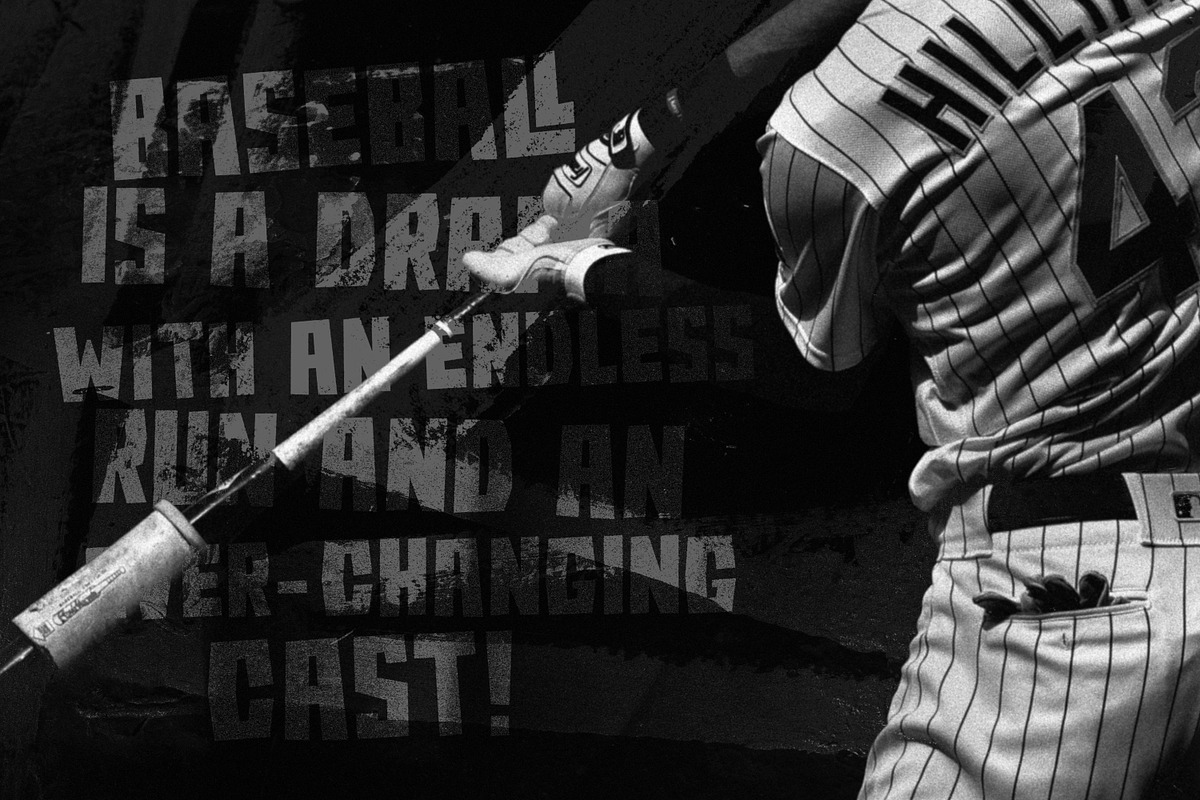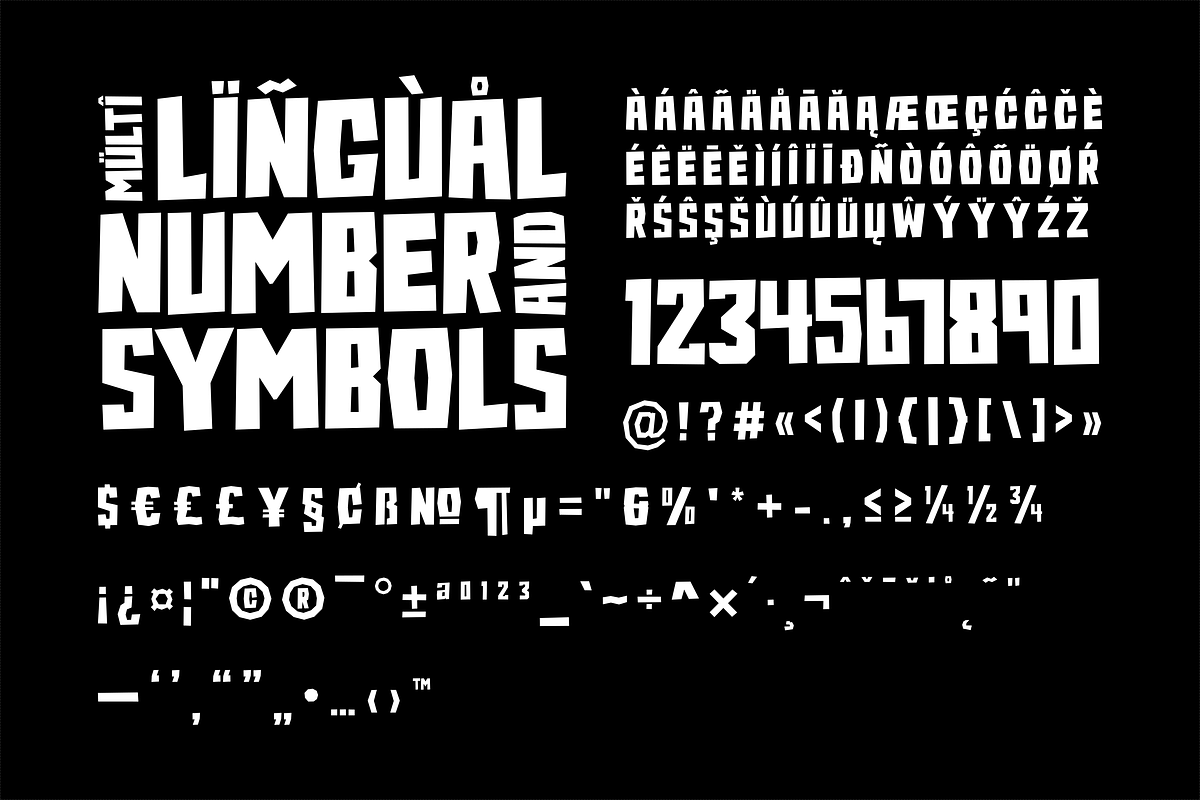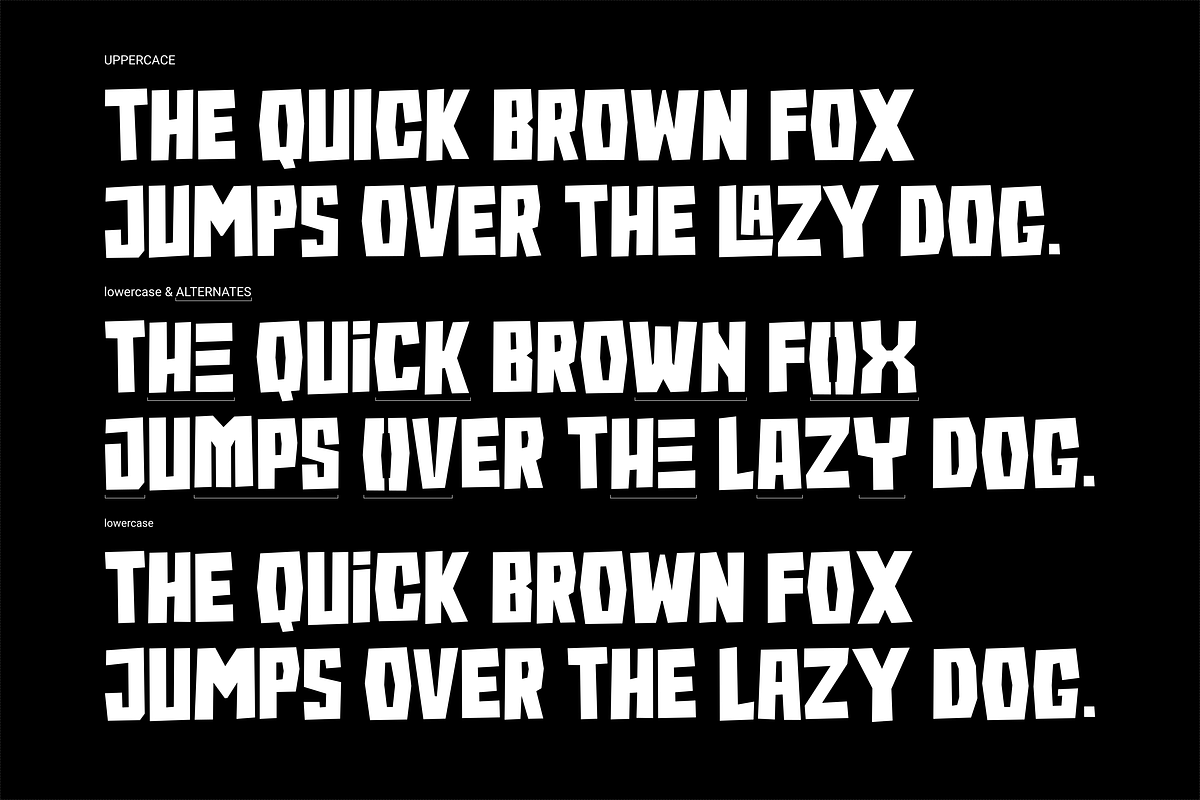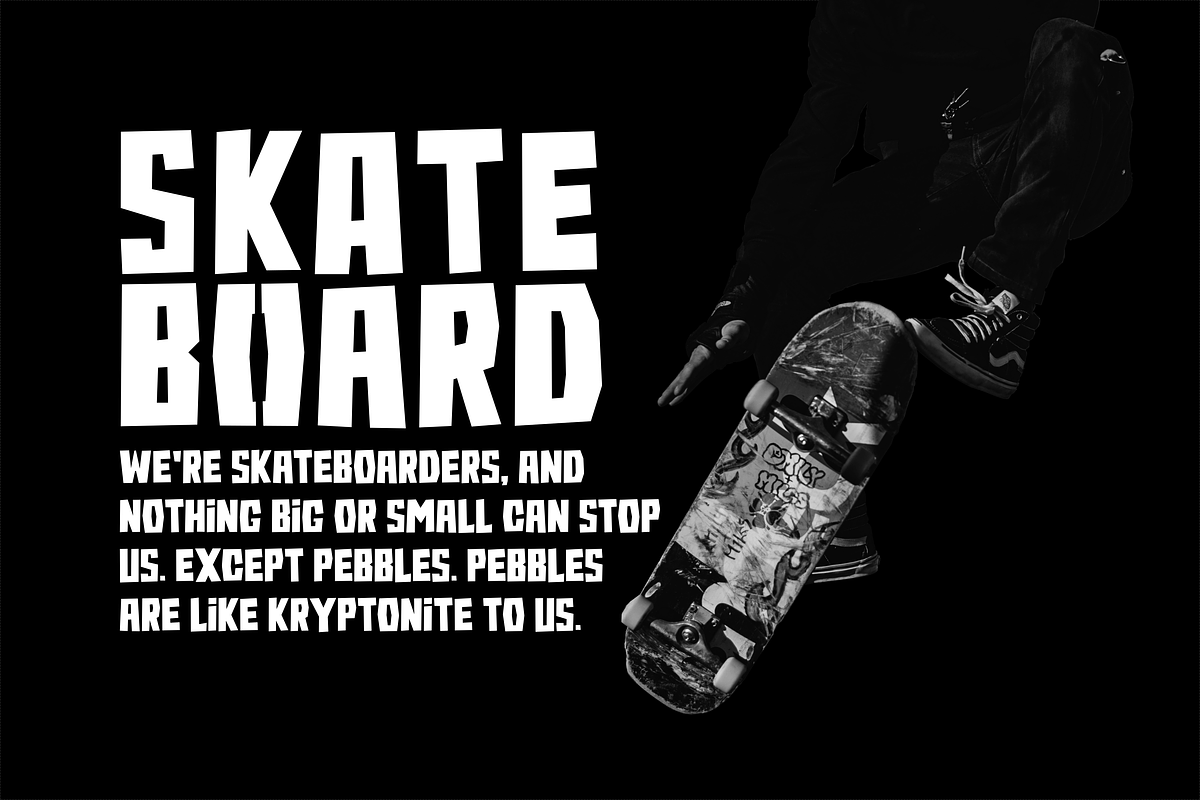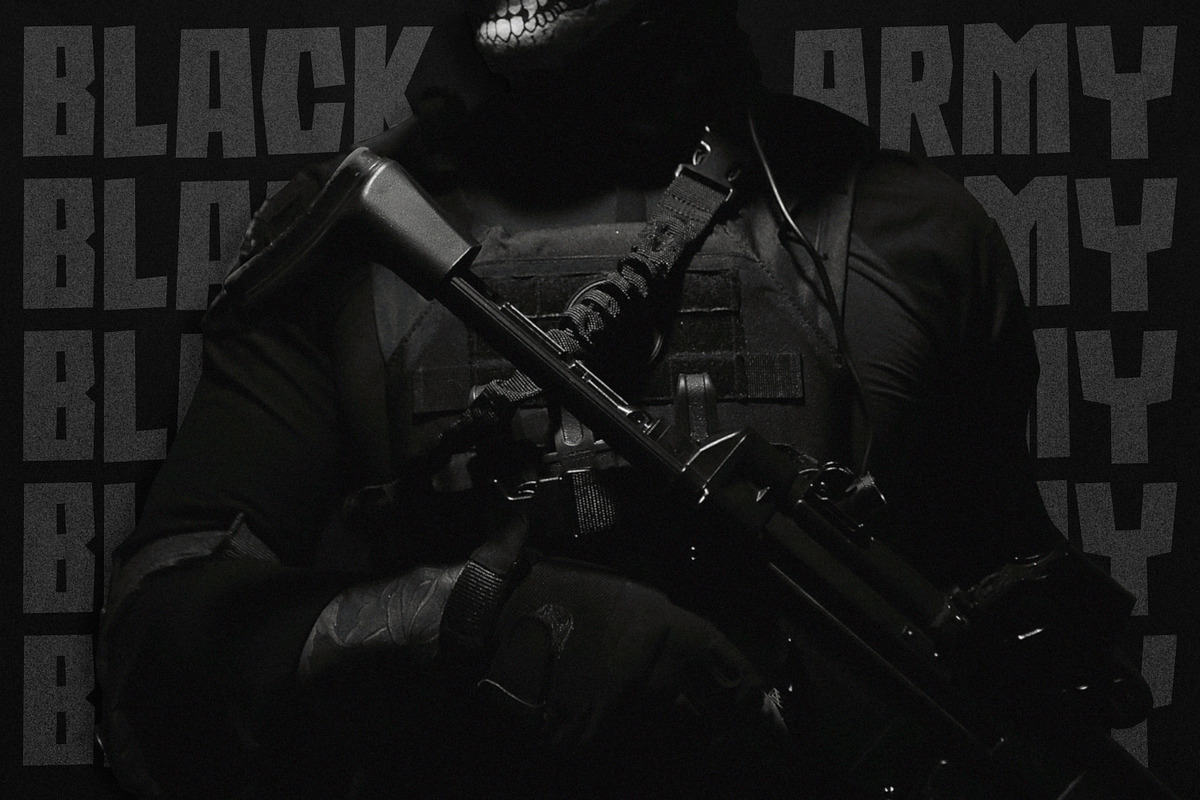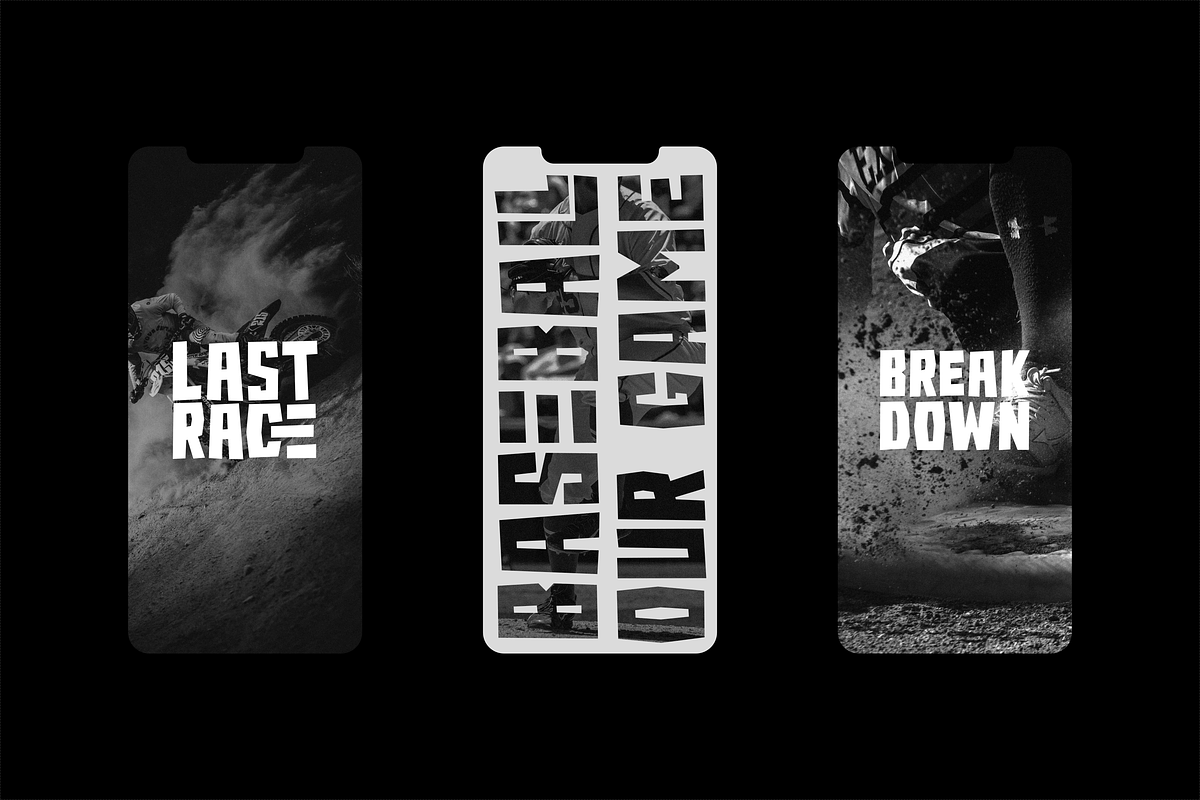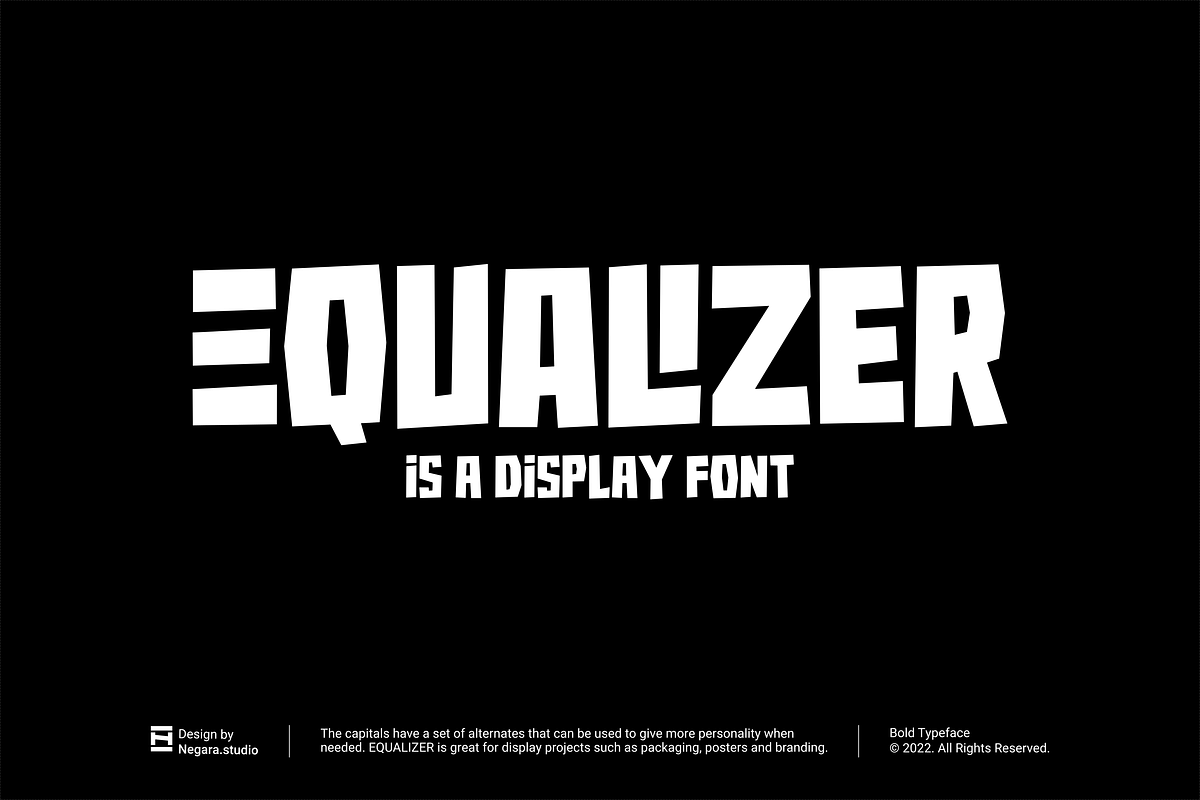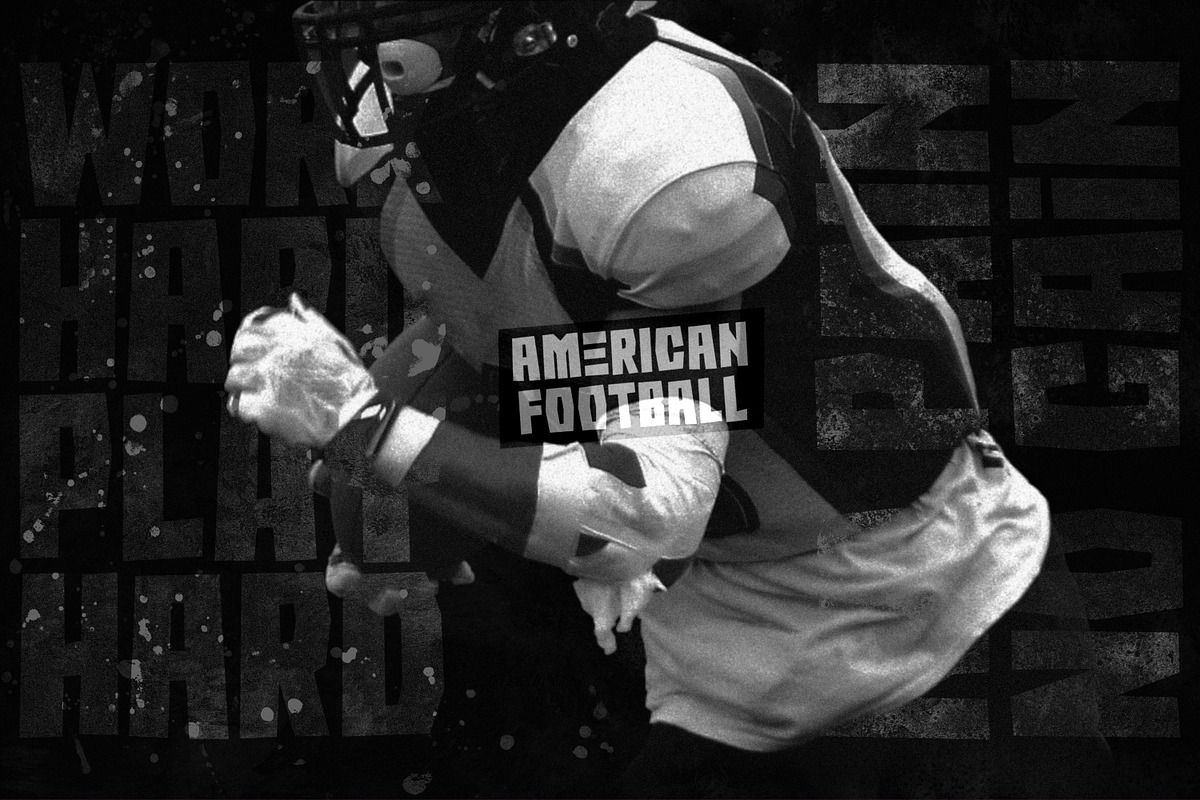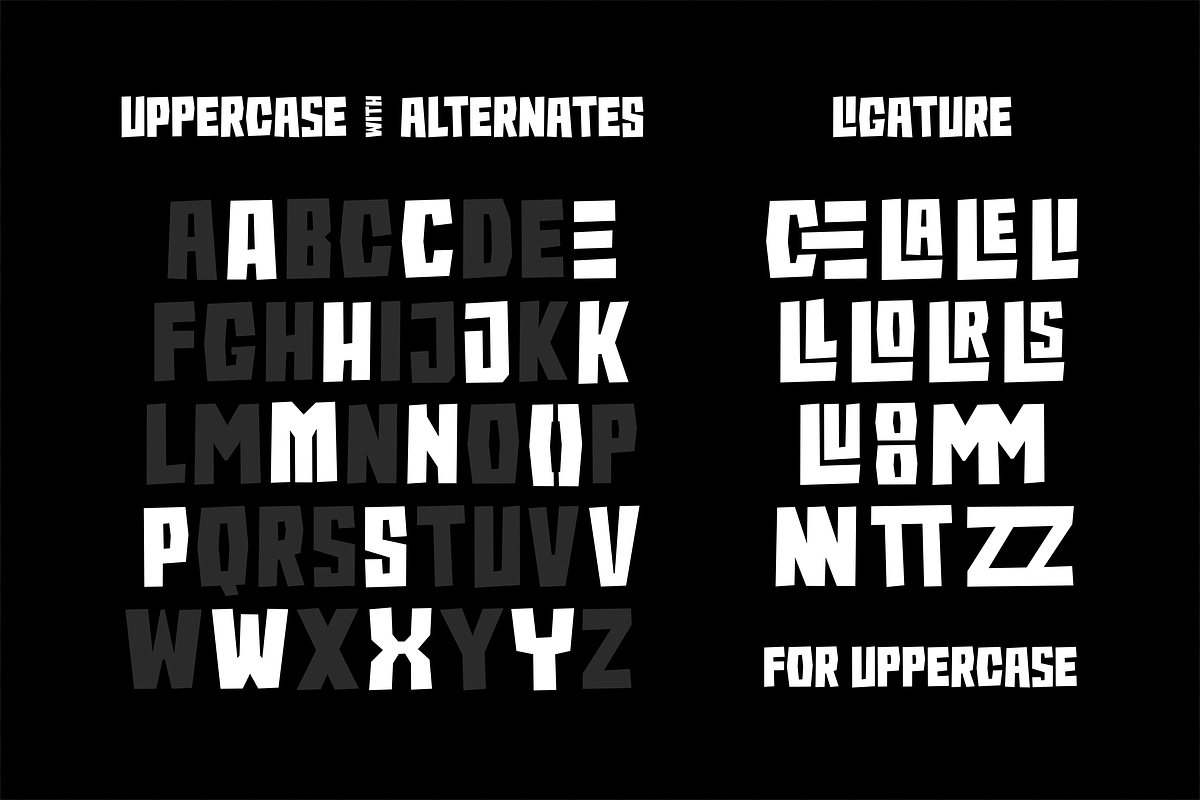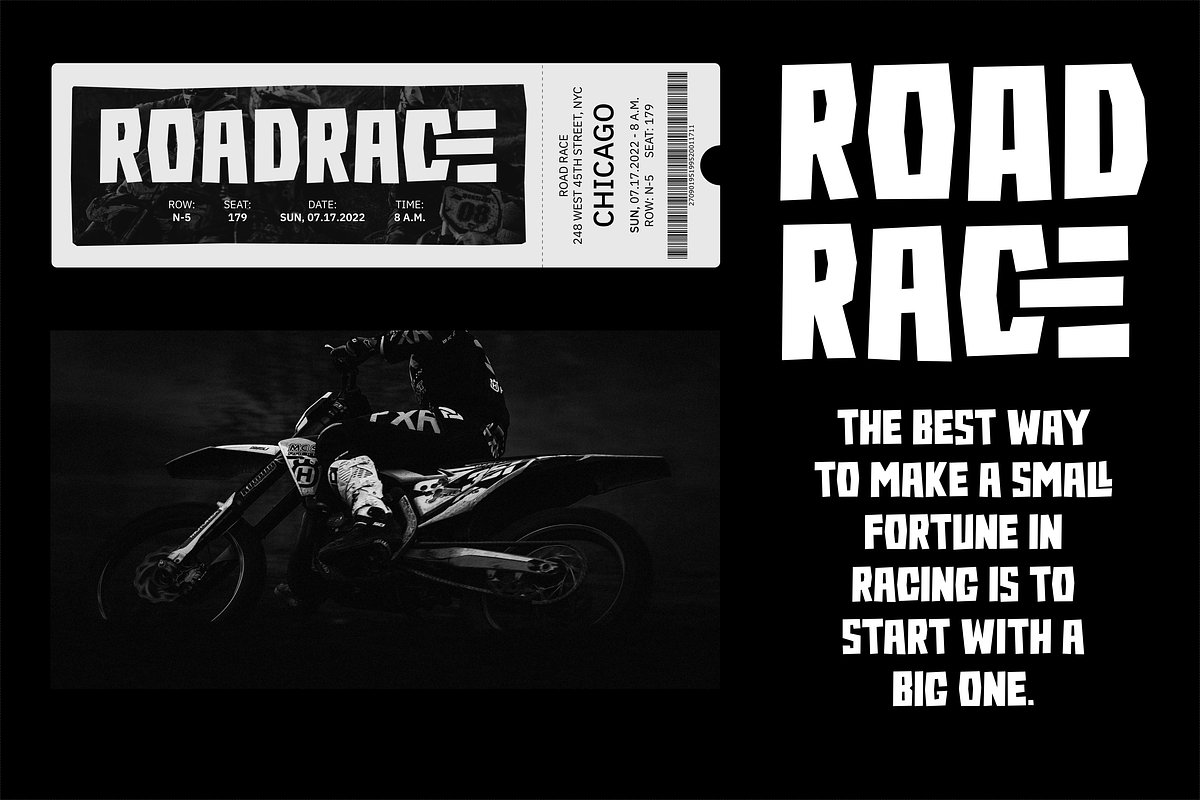
Equalizer
Equalizer is a bold font. The capitals have a set of alternates that can be used to give more personality when needed. Equalizer is great for display projects such as packaging, posters and branding.
Multilanguage Punctuation Alternates Ligatures